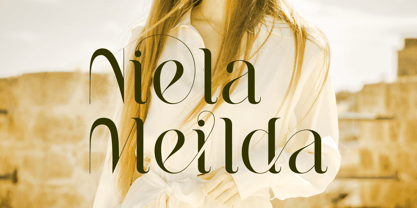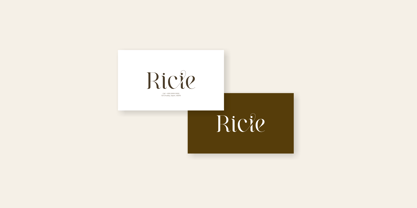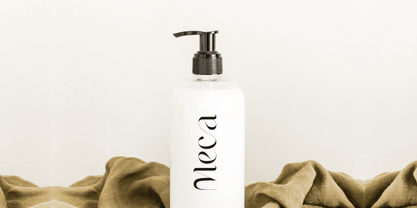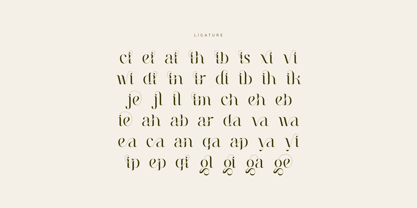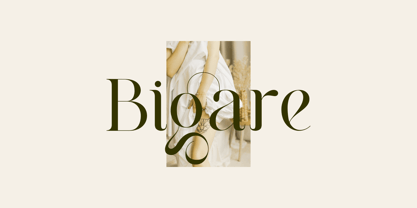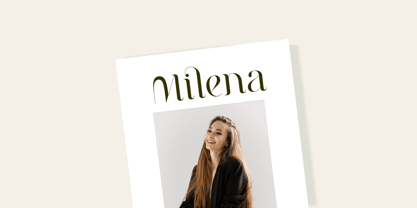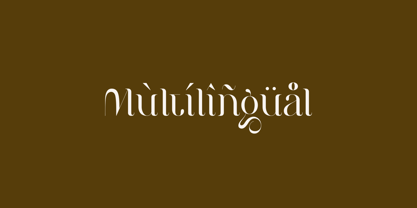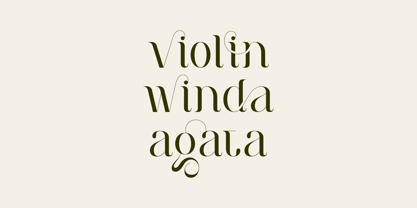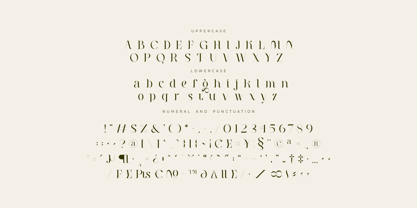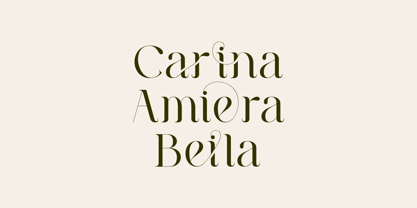
Milea
von suhadidesign
Die Schriftfamilie Milea wurde von ahmad suhadi entworfen und von suhadidesign veröffentlicht. Milea enthält 1 Stile.
Milea - Beauty Ligature Font Hello, ladies and gentlemen! The latest stylish modern font has arrived, highly sought after by both women and men. This is the Milea font. Milea is a feminine vintage serif font. With its modern design and ligature features, this font has become a favorite on the market. We've kept this font looking elegant, classy, ​​and stylish. Milea is the perfect choice for cosmetics, beauty, branding, logos, wordmarks, magazines, designs, books, publications, branding, brand names, business cards, social media, classy designs, newspapers, branding, beauty, and other projects. Milea is here to elevate the quality of your designs. Stay tuned for the latest information about font creation :) Features: • Uppercase Letters • Lowercase Letters • Ligatures • Multilingual Support • Numbers • Punctuation Thank you